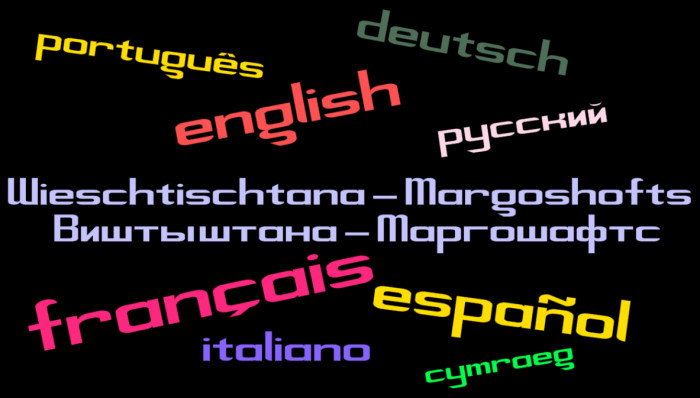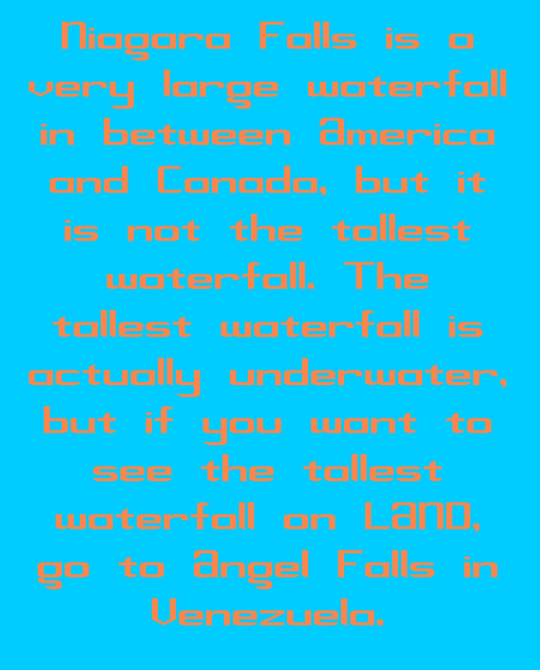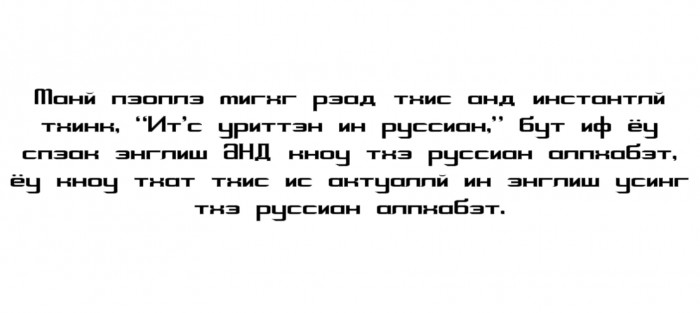
• First of all let me start by saying this is the longest font name i’ve ever seen and it doesn’t even mean anything. This is because I name my fonts random made-up words that I think look good written in the font. Also no, the uppercase letters are not meant to be alternates, I just liked the idea of a lowercase font, but wanted to be able to use uppercase to make things look less like they were written by someone texting the whole time. Yes I know I made the actual uppercases for the tall letters (sorry I don’t know what it’s actually called), but that’s because I couldn’t just make them taller to show that they were uppercase. This font is compatible with English, Spanish, French, Portuguese, German, Russian, and maybe others I missed. Language compatibility requests are welcome.
Wieschtischtana-Margoshoftsby human790